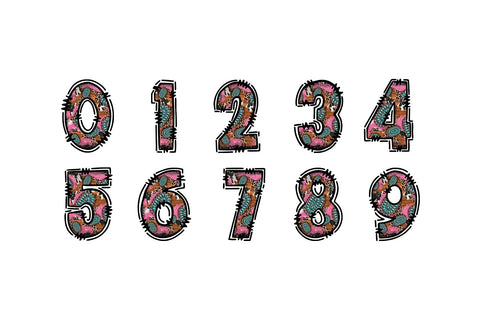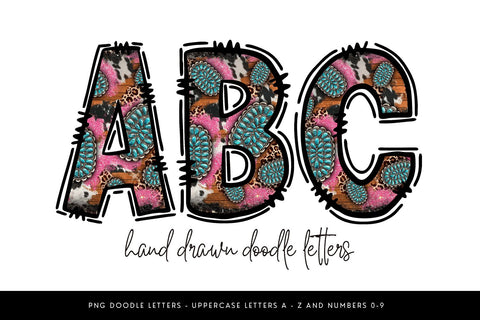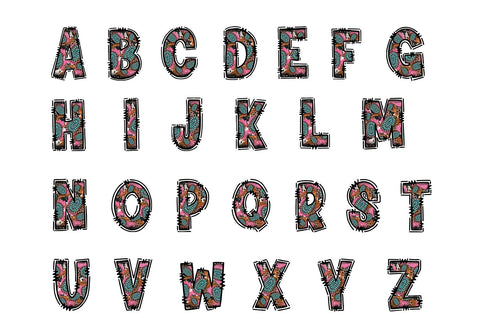
Pink Turquoise Western Doodle Letters
This western-inspired doodle alphabet blends cowhide, rustic wood, turquoise conchos, and pink glitter for a bold cowgirl vibe. Includes hand drawn uppercase PNG letters A-Z and numbers 0–9 for sublimation and digital projects.
✦ Uppercase letters A-Z
✦ Numbers 0 - 9